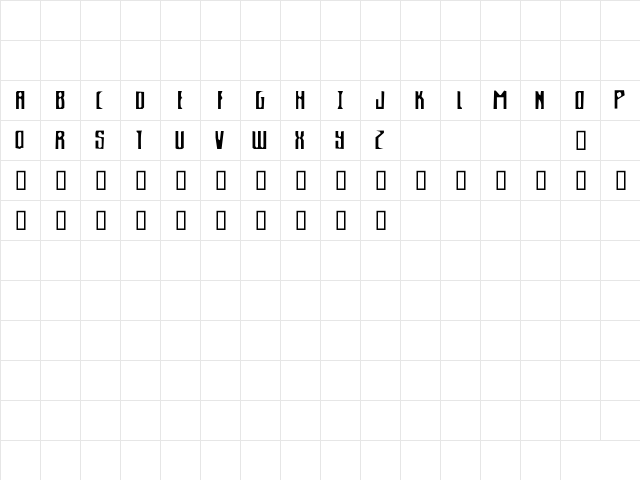
Cheap-Ass Phaser Regular
Design Context for Cheap-Ass Phaser Typeface
Cheap-Ass Phaser is a composed and adaptable typeface that performs quietly and consistently across a wide range of design contexts.